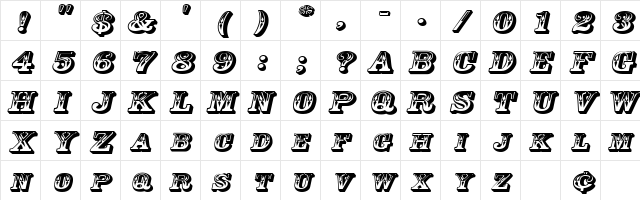
GoldRushExtended is a composed and adaptable typeface that performs quietly and consistently across a wide range of design contexts. The slanted form adds forward momentum and visual energy.